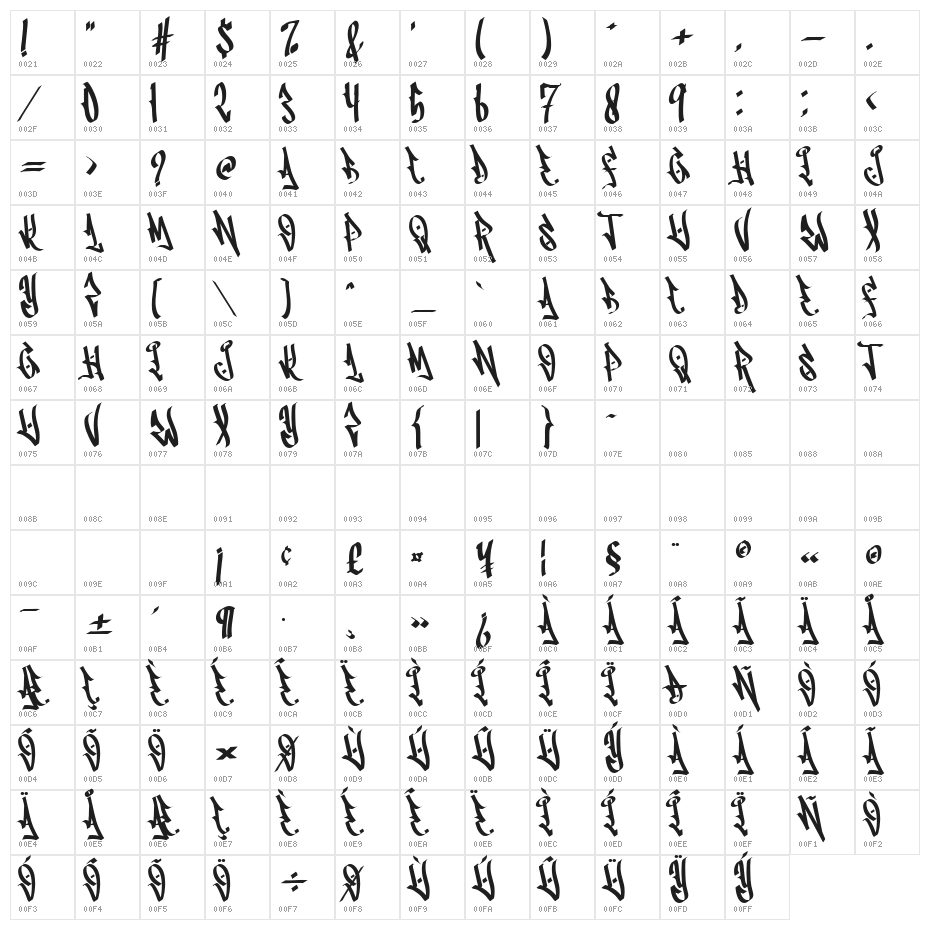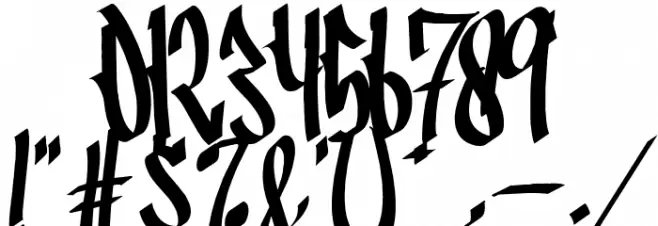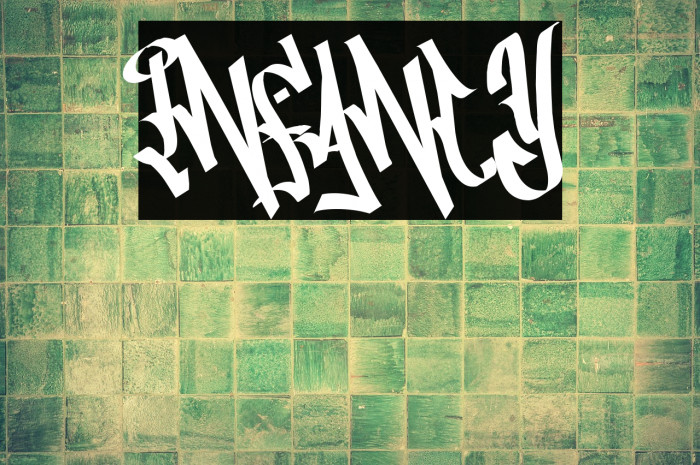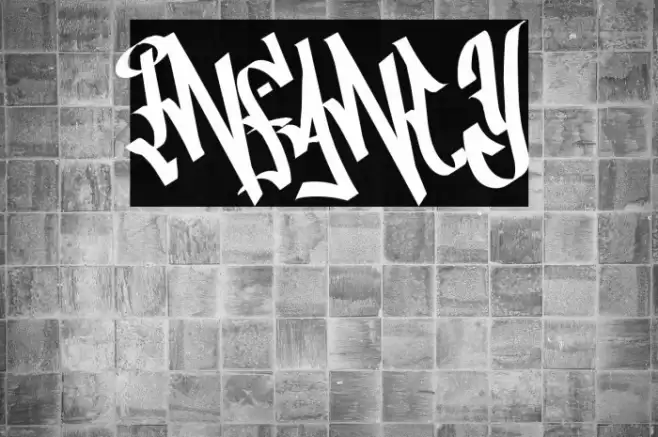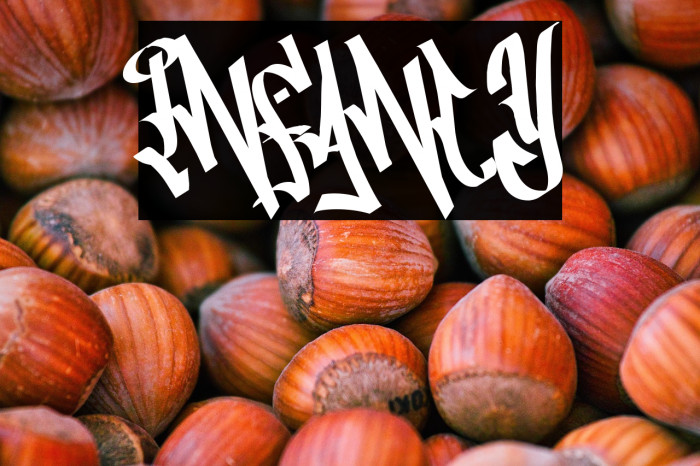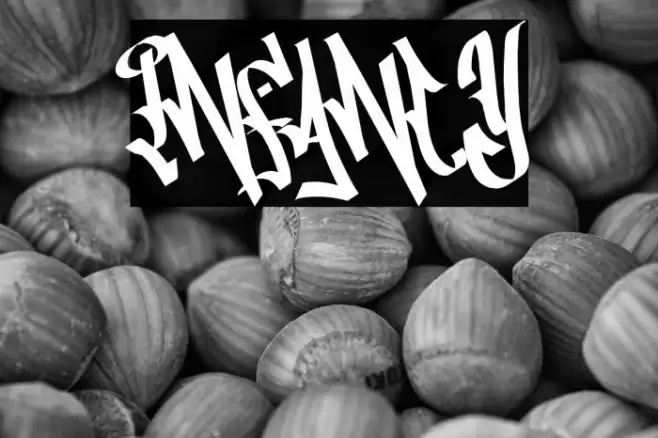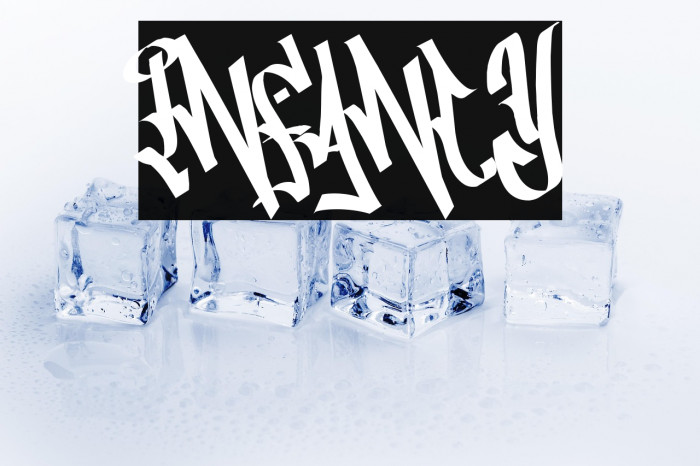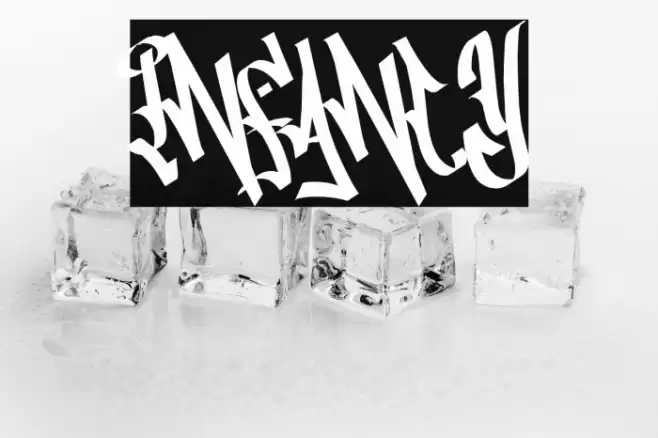
INFANCY Font
INFANCY Description
This font features a bold and dynamic style with a graffiti-inspired aesthetic. The characters are highly stylized with sharp angles and exaggerated curves, creating a sense of movement and energy. The uppercase and lowercase letters maintain a consistent design, while the numbers and special characters complement the overall look. The font's unique appearance makes it stand out, suitable for projects that require a strong visual impact.
| Overall Style | Modern, Urban |
| Proposed Projects | Ideal for street art designs, music album covers, urban-themed posters, and edgy branding projects. |